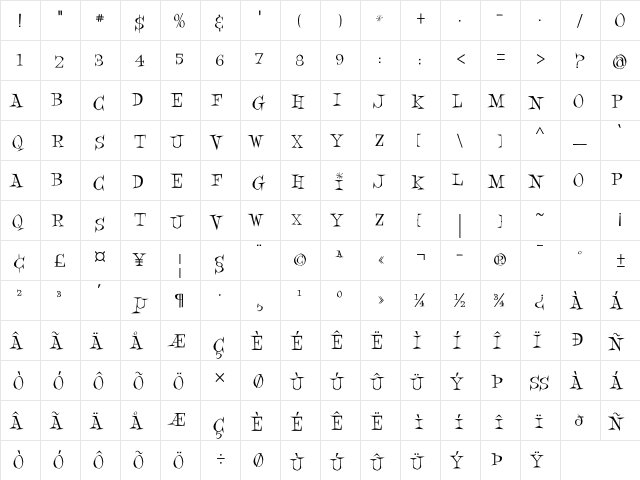
Kiddie Cocktails ITC Std Regular
| Designer | Stuart Sandler |
Design Context for Kiddie Cocktails ITC Std Typeface
Kiddie Cocktails ITC Std is a composed and adaptable typeface that performs quietly and consistently across a wide range of design contexts.
Pro Tip: Use Kiddie Cocktails ITC Std in both headline and body roles to test its range before committing to a single application.